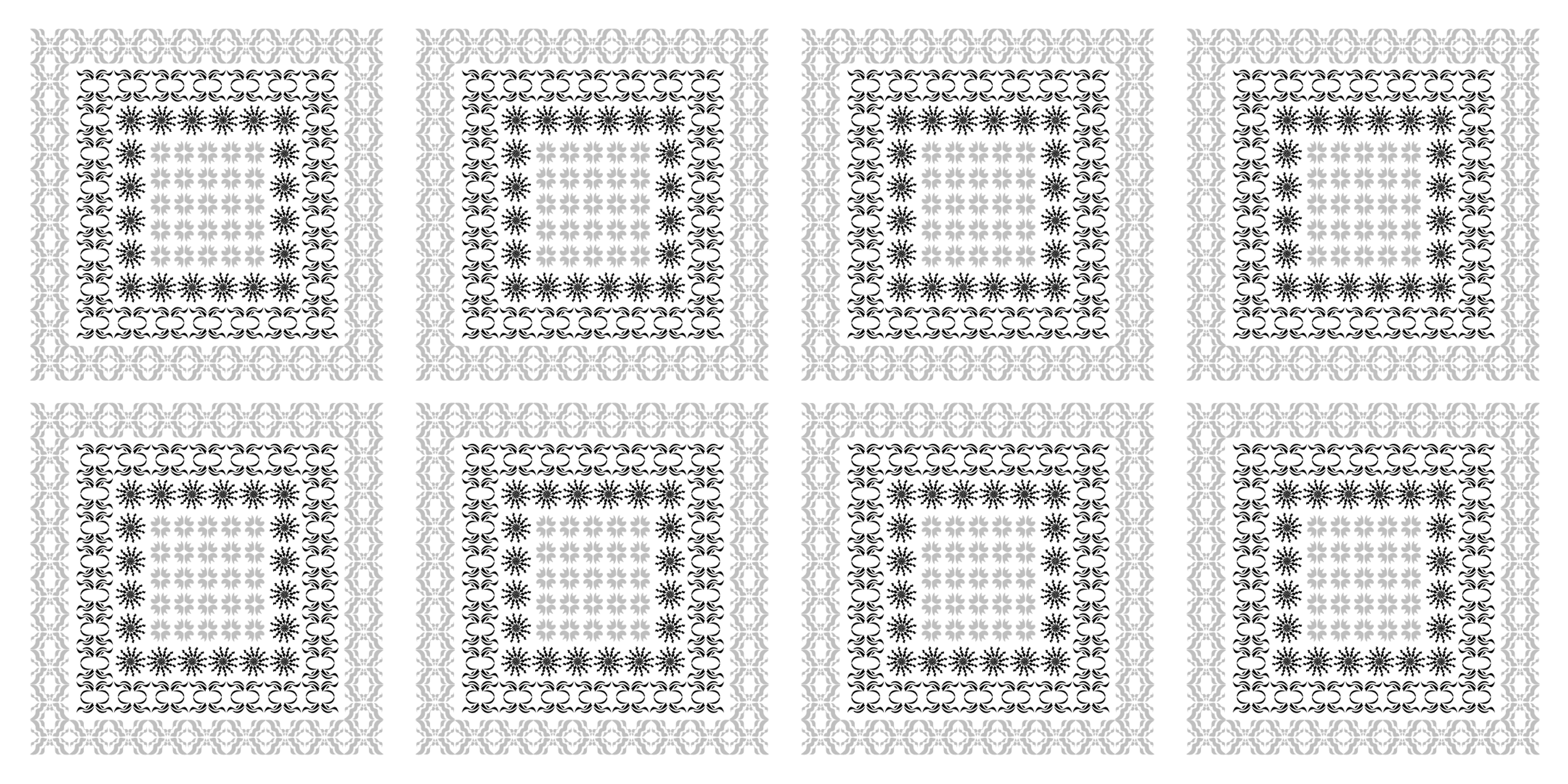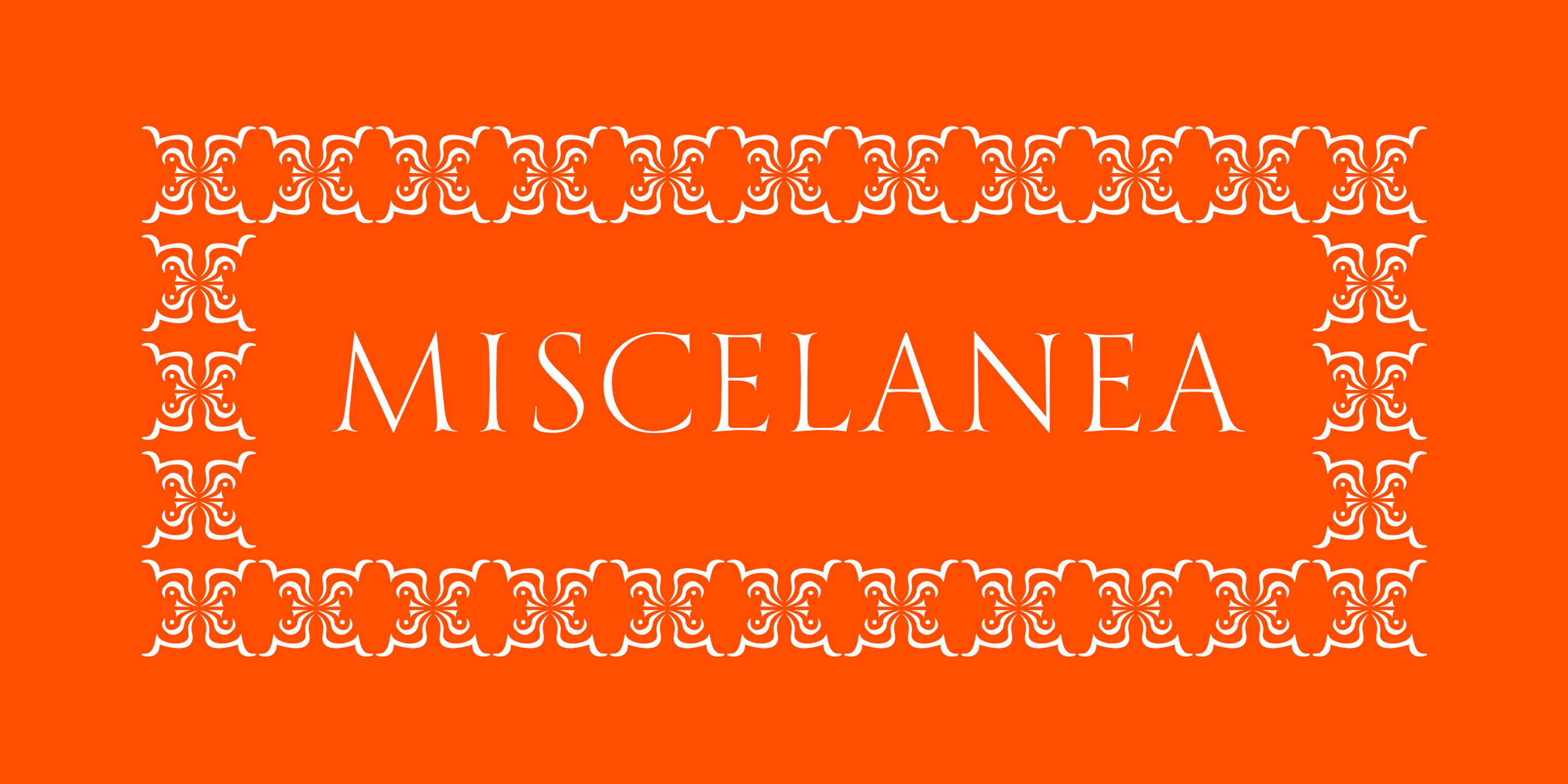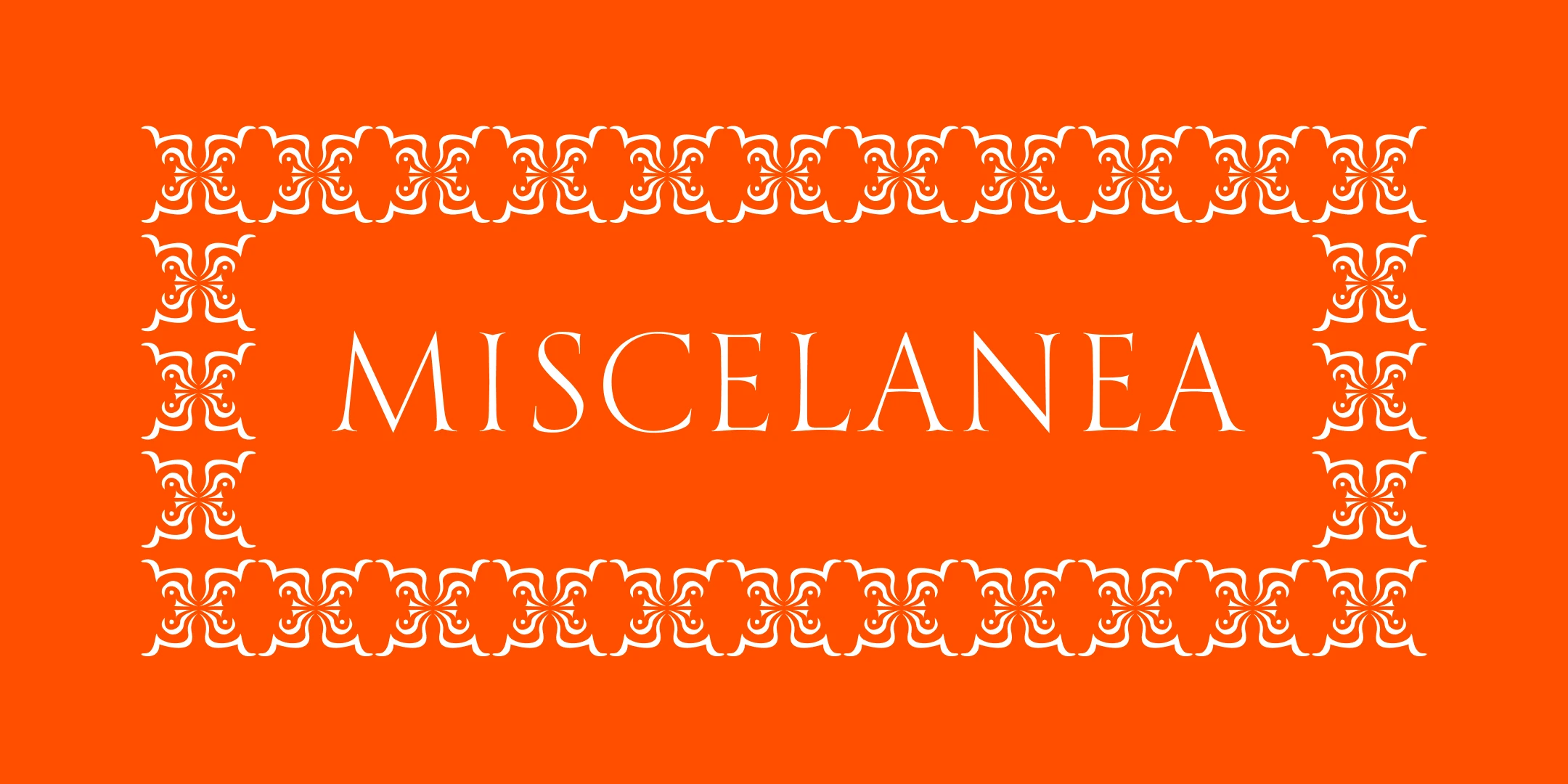
Miscelanea font by Sproviero Type — the word MISCELANEA in upright serif capitals, framed by a rectangular border of white ornamental flourishes
Miscelanea font by Sproviero Type — a grid of eight square patterns, each with a central square of light gray four-leaf clover shapes surrounded by a border of black starbursts and a second border of black curly brackets, all on a background of light gray abstract shapes
Miscelanea is an ornamental dingbat collection designed to catch the eye. Each glyph is a flourish of symmetry and movement — perfect for building patterns, creating borders to frame text, or adding decorative accents. Whether used individually or repeated to form striking motifs or backgrounds, these shapes bring rhythm and richness to packaging, posters, textiles, and editorial spreads. A playful yet polished way to dress up your design work.